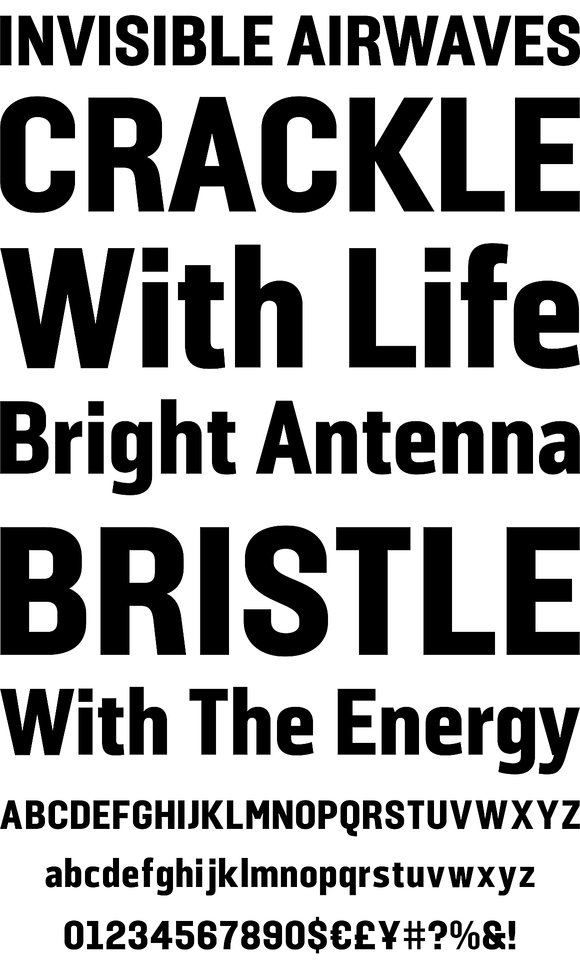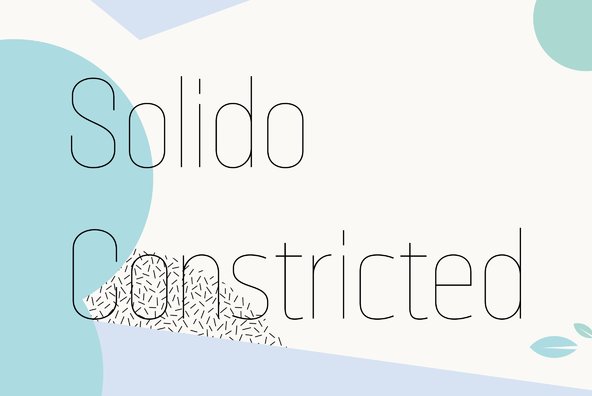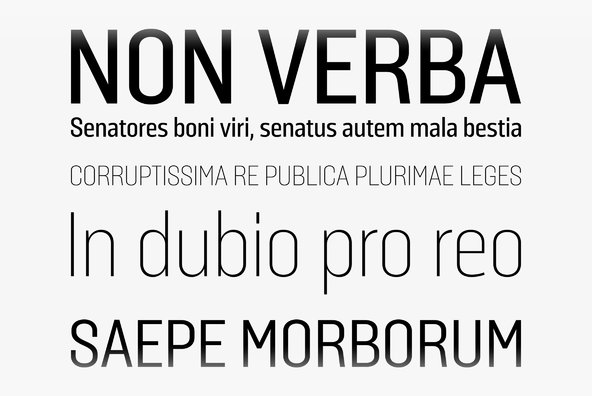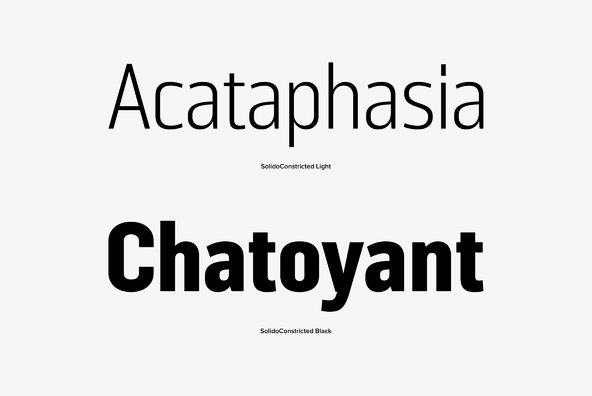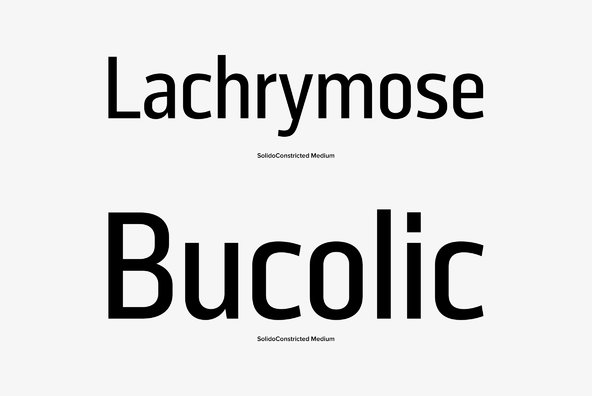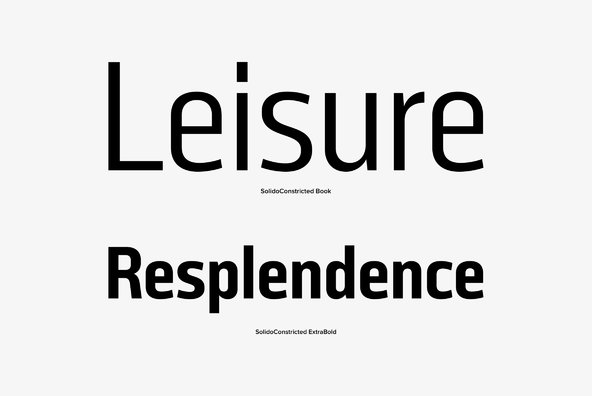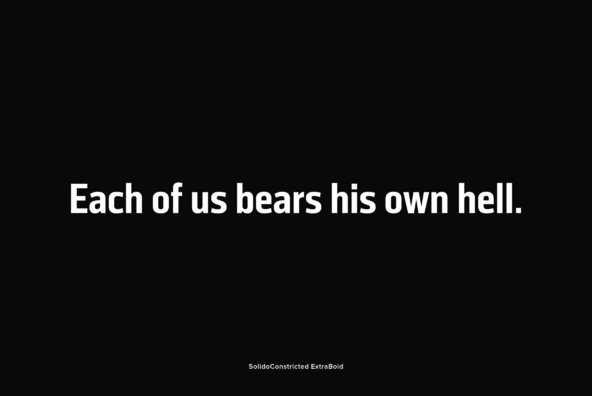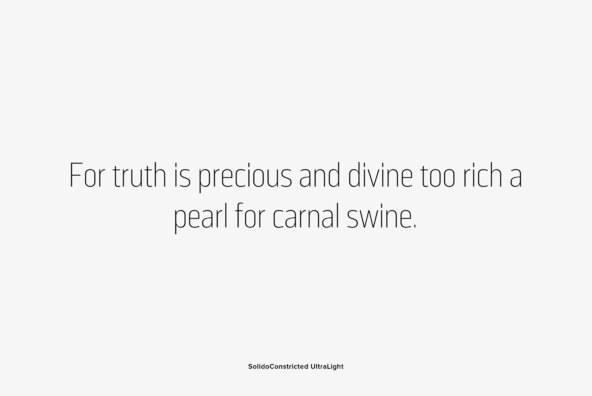
Solido Constricted
Solido is a very versatile and usable type system with five widths: Solido, Solido Constricted, Solido Condensed, Solido Compressed and Solido Compact, in a total of 35 fonts with many of alternate characters.